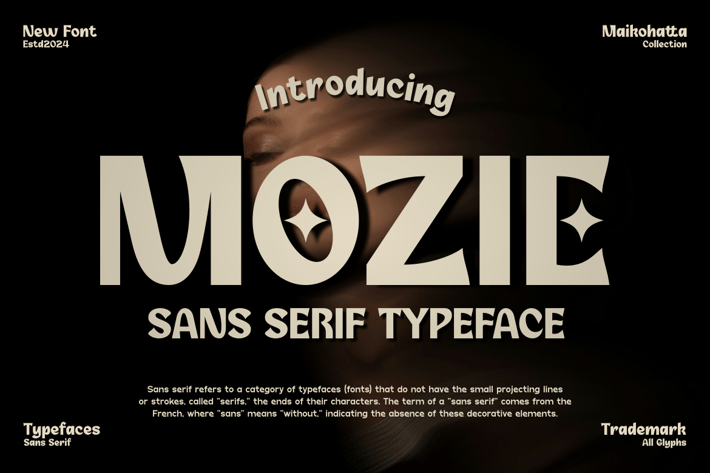
Mozie - Sans Serif Typeface
Introducing our new product Mozie - Sans Serif Typeface
This font is characterized by reflecting joy, cheerfulness and a light atmosphere with a handwritten style often found in comics or cartoons.
This font is perfect for projects that want to highlight elements of playfulness and fun, such as poster designs, invitation cards, comics, or promotional materials aimed at a younger audience or those looking for a fun feel.